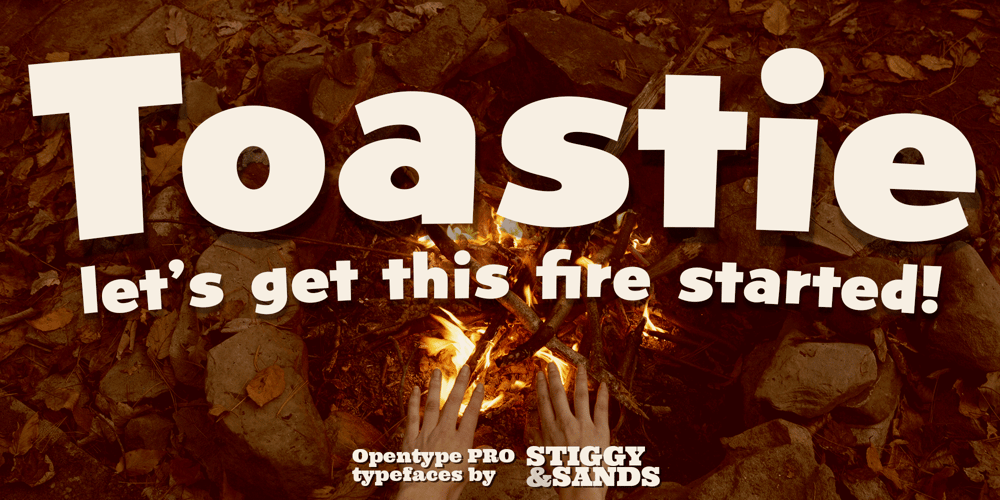
Toastie Font Family was designed by Jim Lyles, Brian J. Bonislawsky and published by Stiggy & Sands. Toastie contains 1 styles and family package options. Toastie began as a digitization of a film typeface from LetterGraphics known simply as “Flair 312”. The original specimen included standard Capitals and Lowercase and Numerals, a bare bones character set. We’ve fleshed out the Toastie font to include a full standard character set, an extended international set, SmallCaps, etc. so it can be a powerhouse animated typestyle. See the last graphic for a comprehensive character map preview. Opentype features include: – Full set of Inferiors and Superiors for limitless fractions. – Tabular and Proportional figure sets. – Stylistic Alternates for a variation of the lowercase r characters. Approx. 591 Character Glyph Set: Toastie comes with a glyphset that includes standard & punctuation, international language support, and additional features.